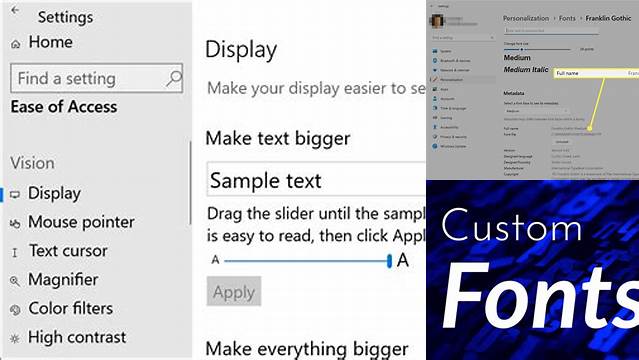
Customize Your Windows Fonts: A Complete Guide
Changing Windows fonts might seem like a small thing, but trust me, it can make a HUGE difference in how you experience your computer. It's like giving your digital world a fresh coat of paint! Whether you're a seasoned tech guru or just starting out, this guide will walk you through everything you need to know about changing Windows fonts, from the basics to some cool customization tricks. So, buckle up, guys, and let's dive into the wonderful world of fonts!
H2: Understanding the Importance of Fonts in Windows
Alright, let's kick things off with why fonts matter in the first place. Think about it: you interact with fonts everywhere on your Windows machine. From the text on your desktop icons to the words you read in your favorite apps, fonts are the silent heroes of your digital experience. They influence readability, user experience, and even the overall aesthetic of your system. First impressions matter, and the right font can make your computer look and feel more enjoyable to use. If you're staring at your screen for hours, the font you choose can significantly impact your eye strain and productivity. Using a font that's too small, too cluttered, or just plain difficult to read can lead to fatigue and make your workflow a real drag. Conversely, a well-chosen font can make reading a breeze, reducing eye strain and boosting your productivity. Changing Windows fonts is more than just a cosmetic change; it's about creating a comfortable and efficient digital environment. The choice of font can even convey a certain mood or personality. A sleek, modern font can give your system a contemporary feel, while a classic serif font might evoke a sense of tradition and sophistication. Furthermore, the fonts you select can reflect your personal style and preferences. In short, fonts affect the way we interact with our computers daily. So, taking the time to choose the right fonts and changing Windows fonts is really an investment in your digital well-being and a way to personalize your tech experience. It's about making your computer feel like your computer, not just a generic tool. When you customize your fonts, you're not just changing how things look; you're enhancing how you feel while you use your computer. It's your personal digital playground.
H3: Fonts and Readability: Why It's Crucial
Okay, let's talk about a super important aspect: readability. This is a big deal! The whole point of having text on your screen is for you to, well, read it. Some fonts are easier on the eyes than others, and that can have a huge impact on how comfortable and efficient your work is. When choosing a font, consider things like the font's size, the space between letters, and the overall design. Fonts like Arial and Calibri are popular because they're designed for maximum readability on screens. They're clean, clear, and easy to distinguish, even at smaller sizes. Other fonts might look cool, but if they're hard to read, they're just not worth it. Think about it: if you're constantly squinting or straining your eyes to make out the text, you're going to get tired, and your productivity will take a nosedive. Changing Windows fonts is a simple but powerful tool to enhance readability. Readability is all about the structure of the letters themselves. Look for fonts with distinct letterforms so that 'l' isn't confused with '1', or 'o' isn't mistaken for '0'. The spacing between letters and words is also important. A font that's too tightly spaced can be difficult to read. Readability also depends on the display medium. What looks great in print may look terrible on a screen, and vice versa. When choosing fonts, give them a test run. Open a document, browse a website, and see how well the text flows. Is it easy to read? If the answer is yes, you're on the right track! Readability can also be impacted by the font color and background. High contrast (like black text on a white background) is usually best for readability, especially in bright environments. Lower contrast combinations (like grey text on a light background) can make your eyes work harder. Ultimately, the right font for you depends on your preferences and your environment. But always remember: readability should be the number one factor when selecting your fonts. If you keep that in mind, you'll be well on your way to creating a comfortable and efficient digital workspace.
H2: Accessing Font Settings in Windows 10 and 11
Let's get down to the nitty-gritty: How do you actually change the fonts in Windows? The process is relatively straightforward, but it might vary slightly depending on your version of Windows. Don't worry, though – I'll guide you through it step-by-step. Changing Windows fonts involves going into your settings to find the font customization options. In both Windows 10 and Windows 11, the most common way to adjust fonts is through the Settings app. This is where you can preview, install, and manage your fonts. The first thing you'll want to do is open the Settings app. To do this, you can click on the Start menu and then click the gear icon (Settings). You can also use the Windows key + I shortcut to open it directly. Once you're in Settings, you'll need to find the